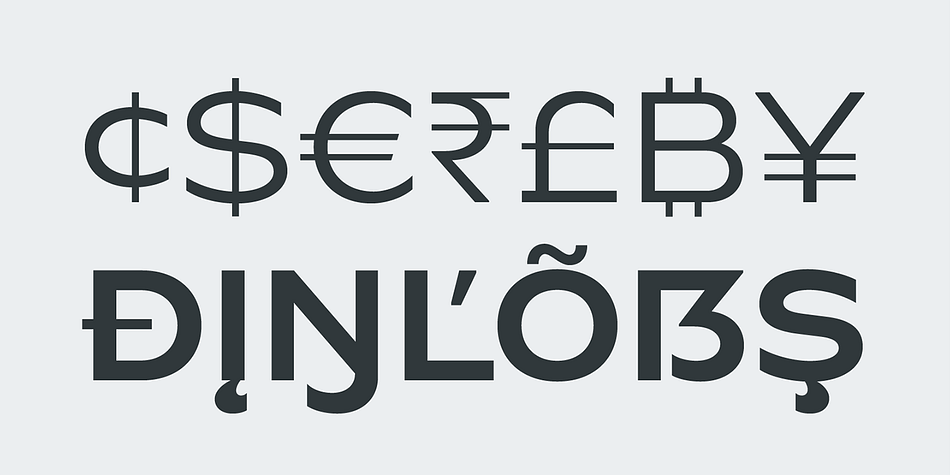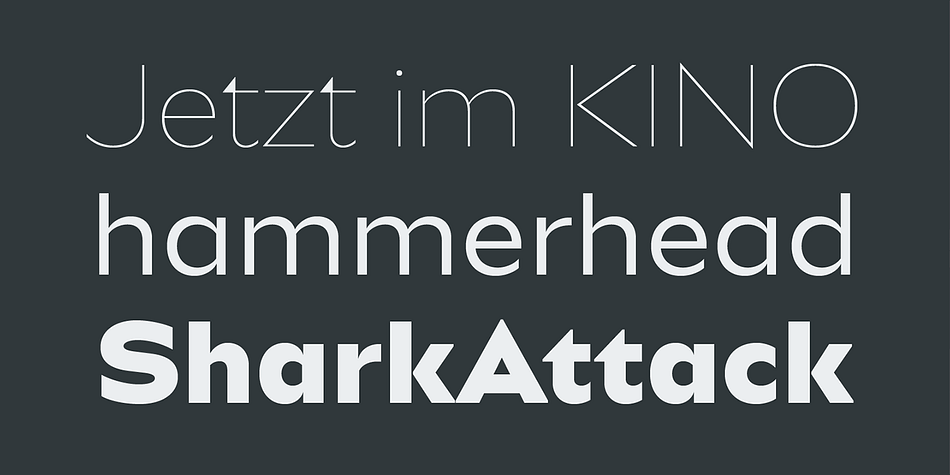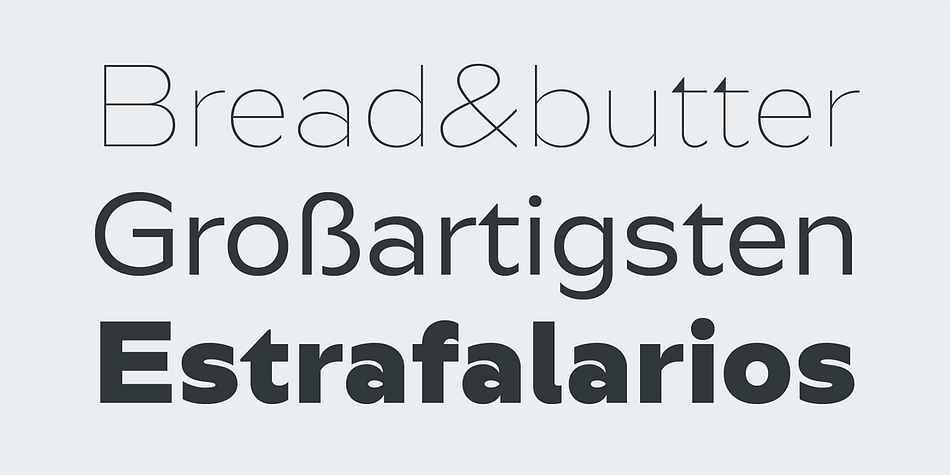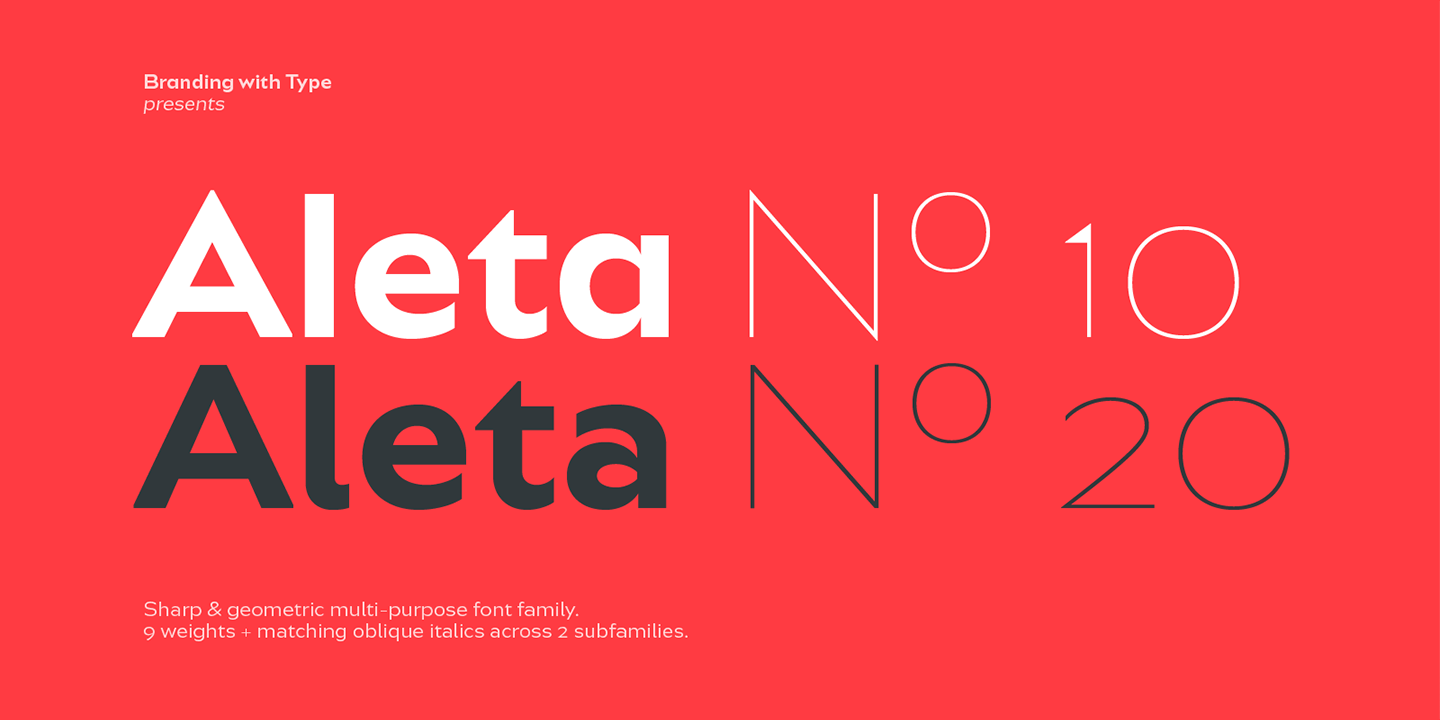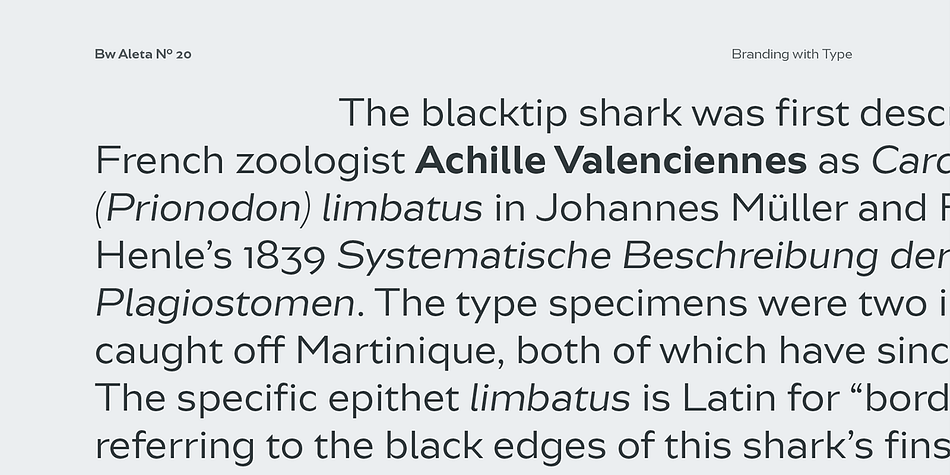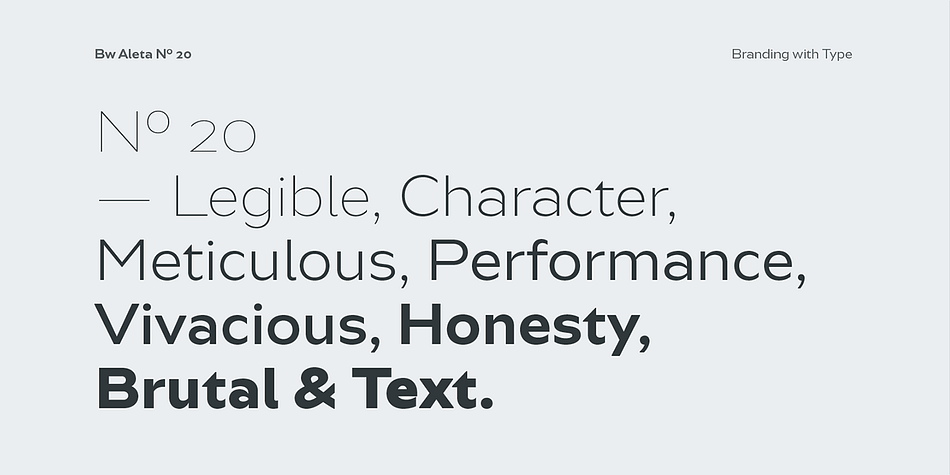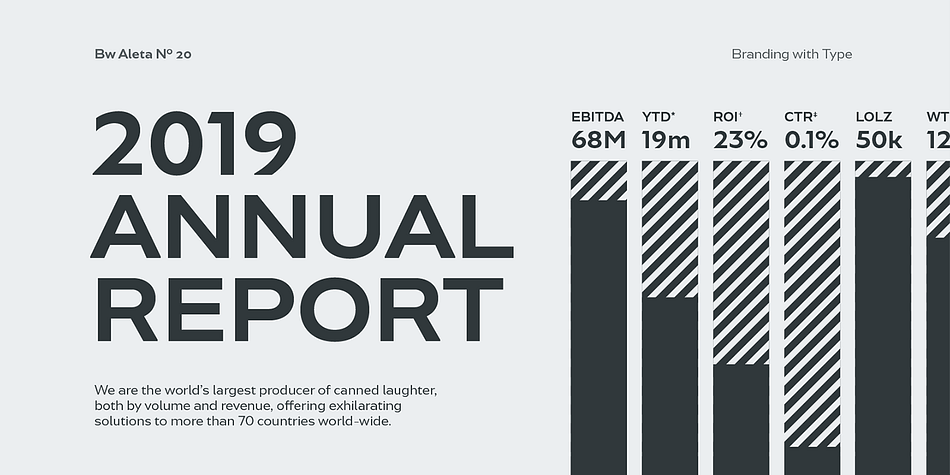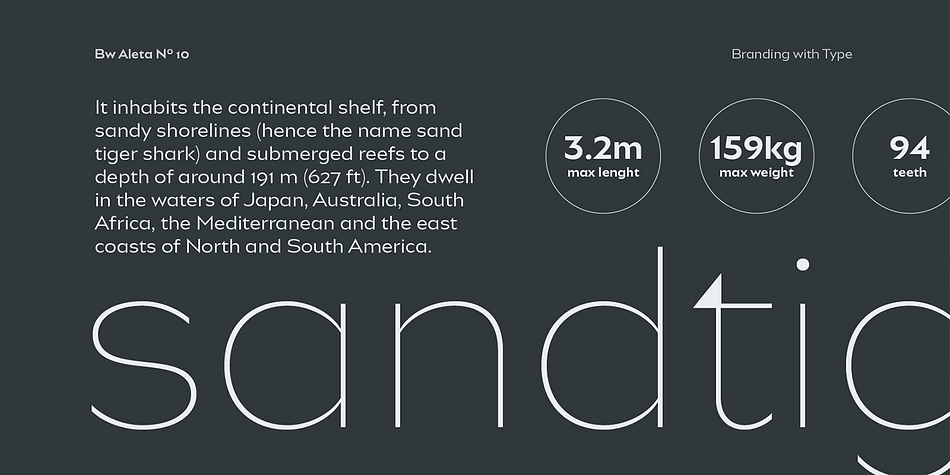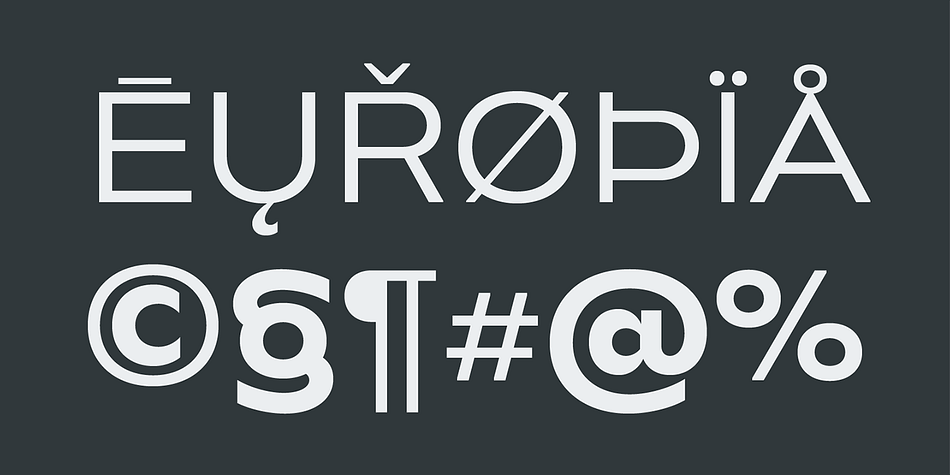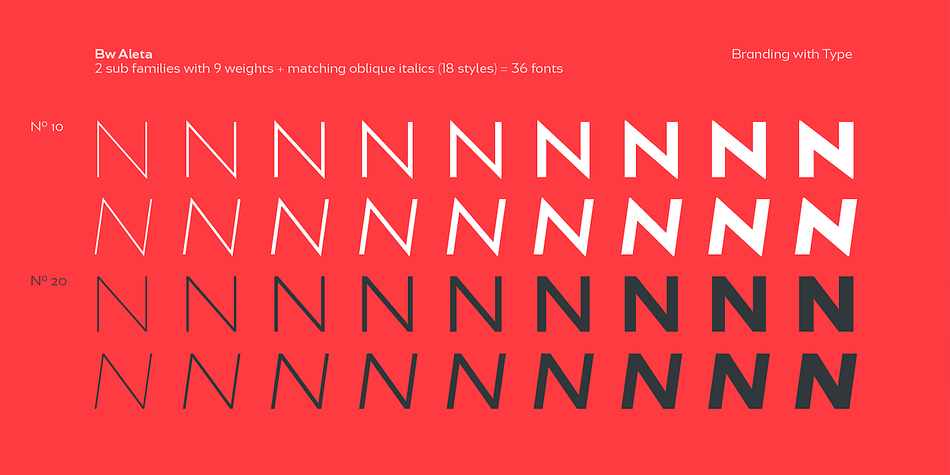
Designed by Alberto Romanos, Bw Aleta is a sans serif font family. This typeface has thirty-six styles and was published by Branding With Type.
Designed by Alberto Romanos, Bw Aleta is a multi-purpose geometric sans with humanist traits. Its wide proportions, straight-forward drawing and obvious modulation on selected areas, all build towards a contemporary & sharp personality.
Bw Aleta is deployed as two distinct subfamilies: No. 10 is the quirkier sibling celebrating all its angles, while No. 20 presents a slightly quieter feel.